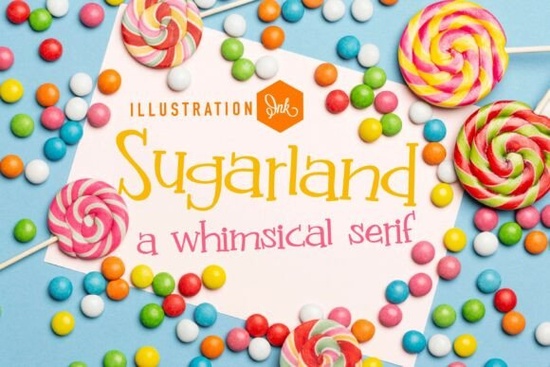
Designers, crafters, and small business owners often look for fonts that bring a unique personality to their projects. The Sugarland Family Font is one such typeface that stands out with its whimsical and artistic style. Whether you're creating packaging for a boutique shop or designing social media graphics, this font can add a touch of charm and creativity to your work.
The Sugarland Family Font is ideal for those who want to convey a sense of playfulness and nostalgia in their designs. Its tall, slender letterforms and mismatched line weights give it a distinctive look that feels both old-fashioned and modern. This makes it perfect for branding elements like toy store logos, craft packaging, and clothing tags. The font's quirky personality helps create a memorable visual identity that resonates with customers.
If you're looking for a font that blends the elegance of traditional serif styles with a playful twist, Sugarland might be just what you need. It’s designed to stand out without being overwhelming, making it suitable for a wide range of creative applications. From digital headers to printed materials, this font adds a unique flair that can elevate your design work.
What Makes Sugarland Unique?
Sugarland’s design is inspired by the aesthetics of children’s storybooks and indie branding. The font features unexpected curling accents and off-kilter asymmetrical serifs that give it a handcrafted feel. These details make it more than just a typeface they make it a storytelling tool. Each character has a personality that can help convey the tone of your project.
One of the standout features of Sugarland is its versatility. While it’s clearly a display font meant for attention-grabbing headlines, it can also be used in more subtle ways. For example, it works well as a logo font or for adding decorative elements to posters and banners. Its light structural posture allows it to pair well with other fonts, making it a flexible choice for designers.
Best Uses for Sugarland Family Font
- Toy Store Branding: Create a magical atmosphere with a font that feels like it belongs in a storybook.
- Craft Packaging: Add a personal touch to handmade products with a font that feels unique and artistic.
- Social Media Headers: Make your posts stand out with a font that exudes creativity and carefree energy.
- Clothing Tags: Use it to label items in a way that feels fun and expressive.
Whether you're working on a print-on-demand project or building a brand from scratch, Sugarland offers a fresh and original look that can set your designs apart. Its combination of nostalgic charm and modern appeal makes it a go-to choice for many creatives.
How to Use Sugarland Effectively
When using Sugarland, it's important to consider the context of your design. Because it’s a display font, it works best when used in smaller quantities such as headings, titles, or short phrases. Using it for large blocks of text may reduce readability and overwhelm the viewer.
Pairing Sugarland with simpler, more neutral fonts can help balance its visual impact. For example, combining it with a clean sans-serif font like Roboto or Lato can create a contrast that highlights the uniqueness of Sugarland without making the design feel cluttered.
Another tip is to experiment with different sizes and weights. Even though Sugarland is a single-style font, adjusting its size and spacing can create different effects depending on your needs. This flexibility allows you to use it in a variety of design scenarios without repeating the same look.
By choosing the right font for your project, you can enhance the visual appeal and emotional impact of your work. The Sugarland Family Font is a great option if you want to add a touch of whimsy and creativity to your designs. With its unique style and versatile applications, it’s a valuable addition to any designer’s toolkit.
Before finalizing your design, take some time to test how the font looks in different contexts. Try it on various backgrounds, sizes, and layouts to see what works best. This will help ensure that your final design is both visually appealing and effective in communicating your message.